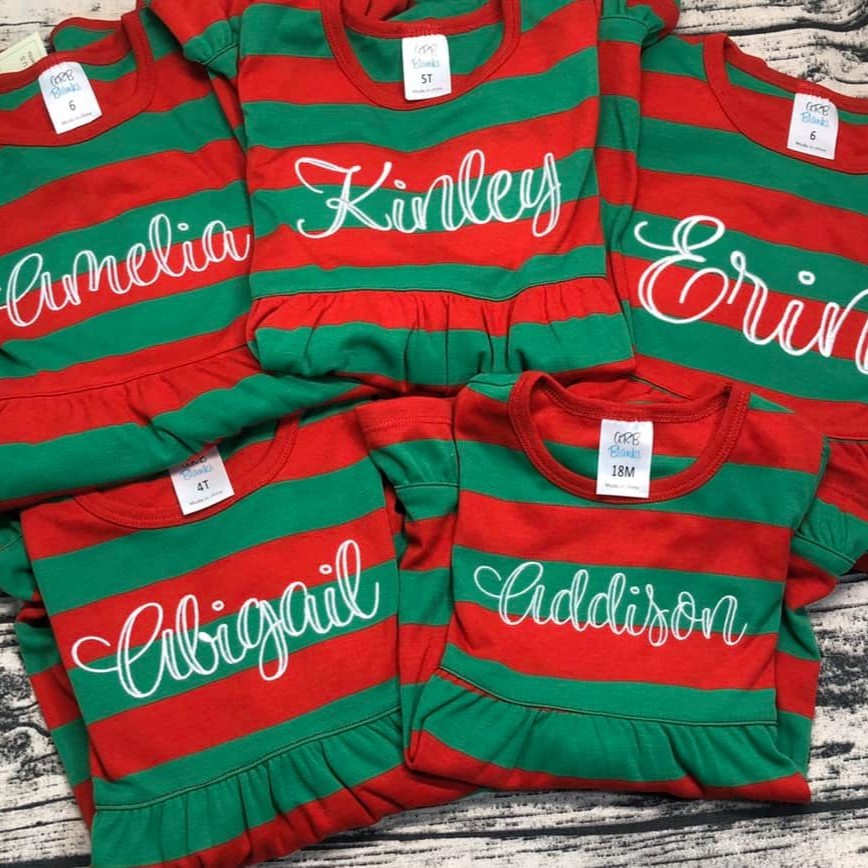
May 20, 2025 Leave a Comment ShowcaseCarmie Lou Embroidery Font – Christmas Pajamas Carmie Lou is such a beautiful embroidery font for monograms! We love this pillow made by Lori L! Purchase Carmie Lou Embroidery Font